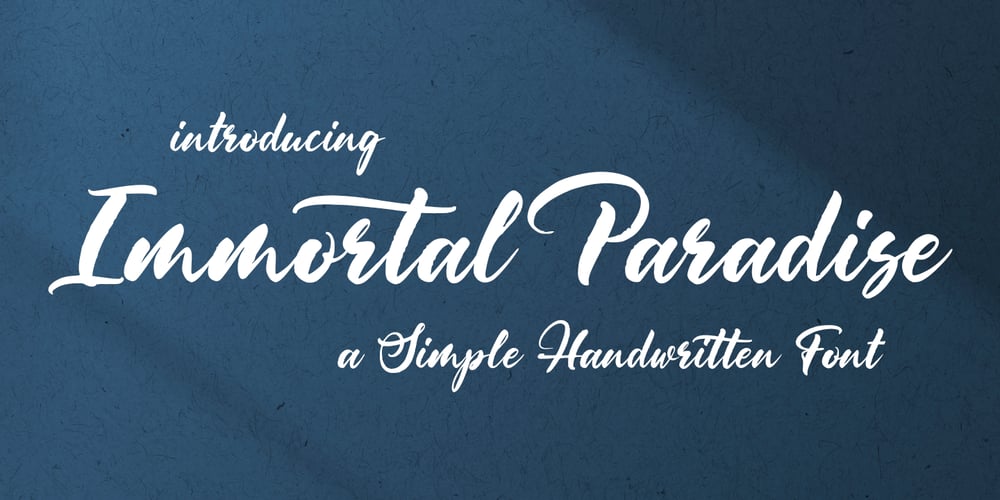
Immortal Paradise Font Family was designed by Abo Daniel and published by Abo Daniel. Immortal Paradise contains 1 styles and family package options. introducingIMMORTAL PARADISE- a Simple Handwritten Font -IMMORTAL PARADISE is a natural hand brush script font. Described by an elegant touch, perfect for your favorite projects. Fall in love with its simple and timeless style and use it to create spectacular designs.It is great for quotes, cards, banners, books, branding, packaging, cutting, silhouette, social media content, and anything of your project.Features:- Uppercase- Lowercase- Number & punctuations- Multilingual- PUA encodedI hope you love it.regards,Abo Daniel Studio